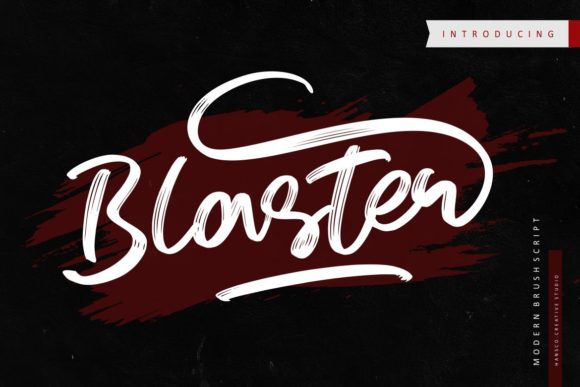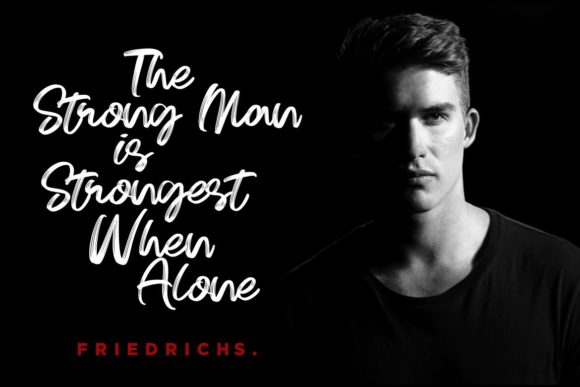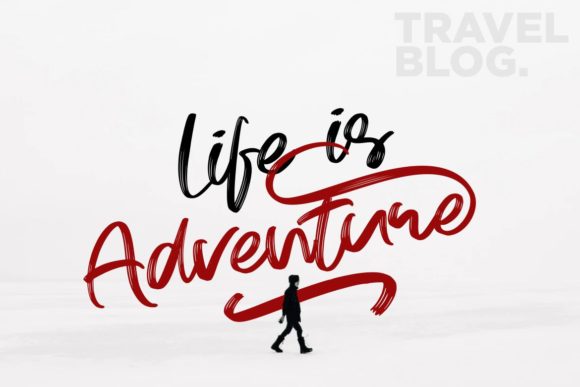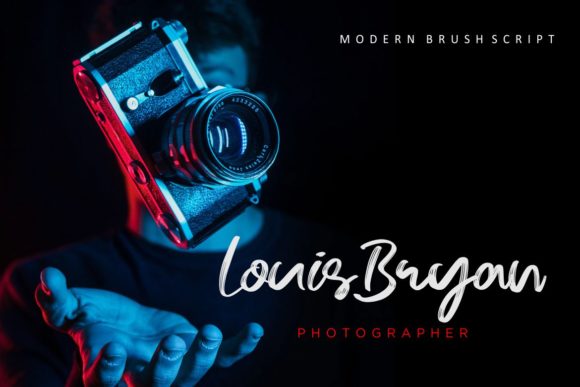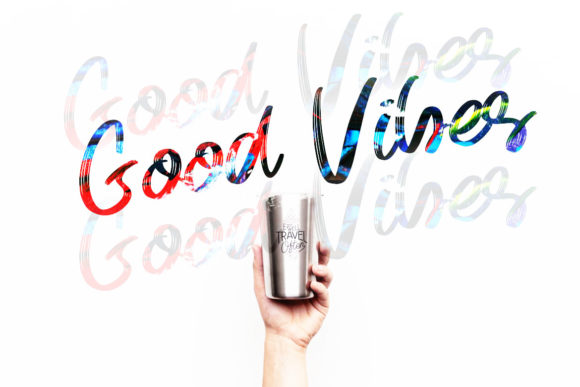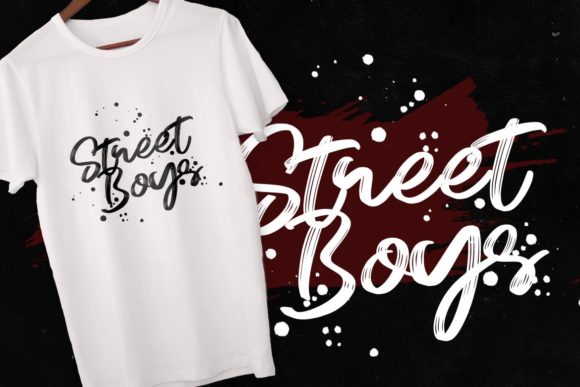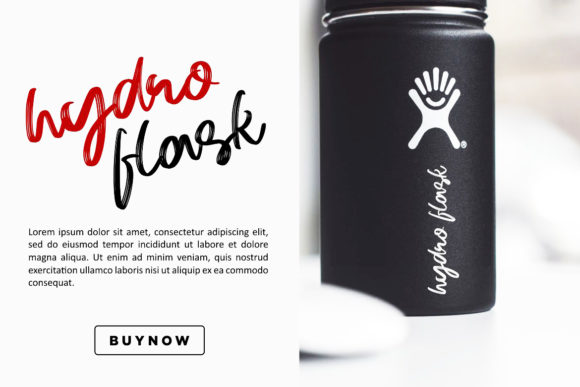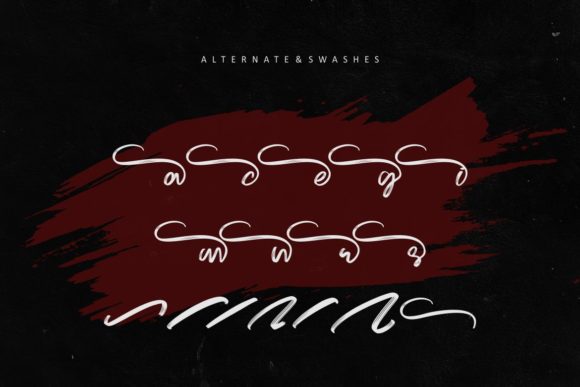
Blaster Font
About Blaster Font
Blaster is an expressive and incredibly original handwritten font that will turn any design project into a true standout.